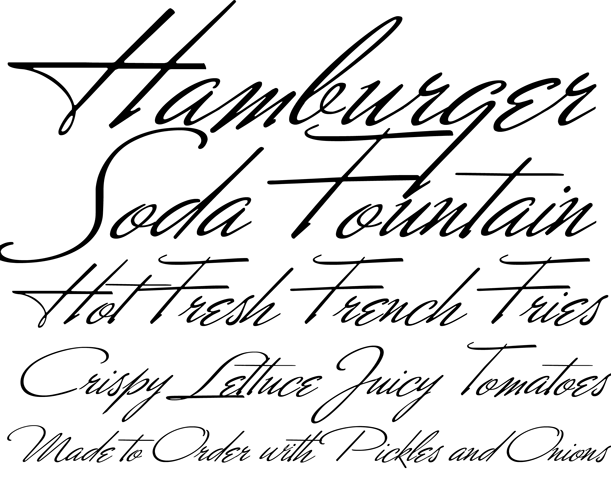
Mr Canfields
About Mr Canfields
The Charles Bluemlein Script Collection is an intriguing reminder of the heady days of hand lettering and calligraphy in the United States. From the early 1930s through World War II, there were about 200 professional hand letterers working in New York…